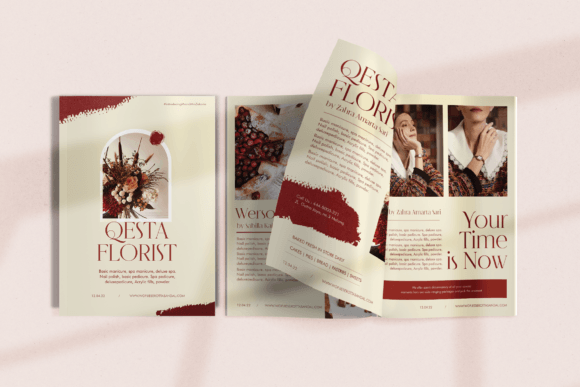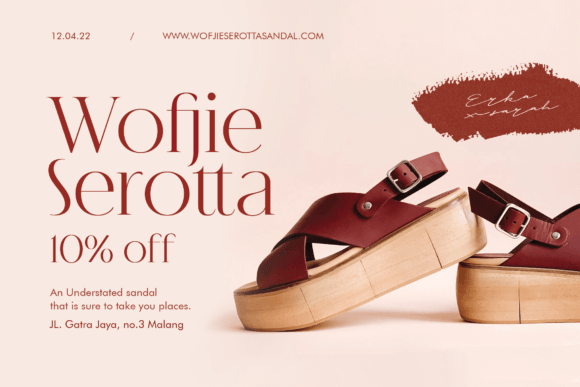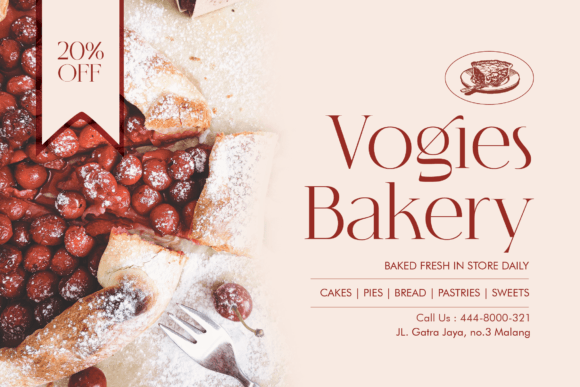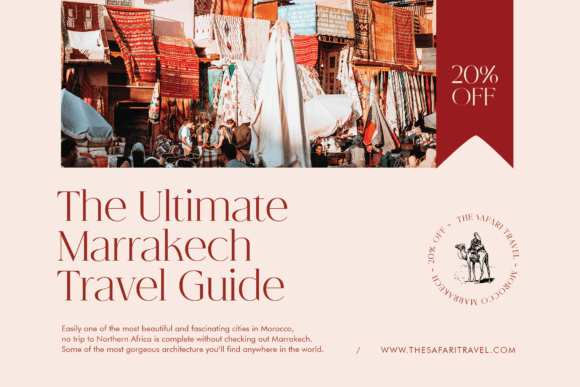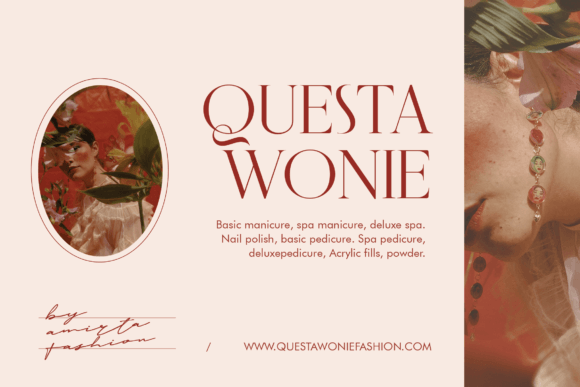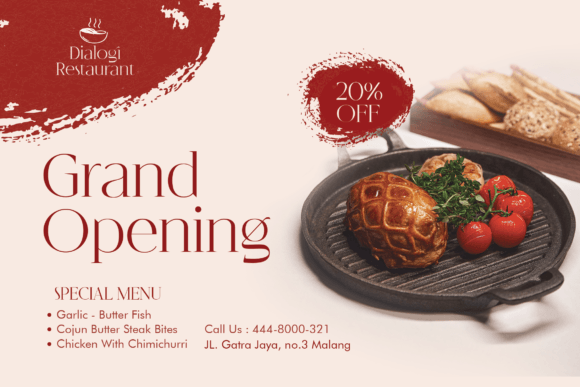
Introduction to Quinstory Font
Have you ever been in the middle of a creative project, staring at a blank page, and suddenly, the perfect font pops into your head? For designers, this moment is pure magic. It’s the spark that ignites a vision, and with the right typography, the entire design comes alive. One such font that has been making waves in the design community is the Quinstory Font – a modern, elegant aesthetic serif font that’s perfect for luxury logos, classy editorial designs, and much more.
As a valuable resource for designers, Quinstory Font offers a range of alternates and ligatures that can be combined to create a unique and captivating typography design. Whether you’re working on a high-end branding project or a blog design, this font is sure to elevate your creative work. With its high-quality design and transparent background, Quinstory Font is a free download that’s waiting to be unleashed on your next creative project.
- Unique, hand-crafted design aesthetic, setting it apart from other fonts in the market.
Honest Review: Quinstory Font
I recently had the chance to work with the Quinstory Font for a creative project and I’m excited to share my honest review. As a designer, I’m always on the lookout for high-quality design resources to elevate my work. The Quinstory Font did not disappoint.
- Unique Style: The Quinstory Font has a distinct and quirky style that sets it apart from other fonts.
- Limited Character Set: The Quinstory Font has a relatively limited character set, which may be a drawback for designers who need a wide range of characters.
- No Bold or Italic Variations: The font only comes in a regular weight, which may not be suitable for all design applications.
Overall, I was impressed with the Quinstory Font’s unique style and versatility. While it may have some limitations, it’s still a valuable addition to any designer’s toolkit. I’d definitely recommend it for creative projects where a distinctive font is needed.
Experiment with different font sizes and styles to get the most out of the Quinstory Font. You can also use it in combination with other design elements to create a unique and eye-catching design.
The Quinstory Font is perfect for a variety of creative projects, including graphic design, branding, and digital art. Its high-quality design and transparent background make it an ideal choice for designers looking for a versatile and effective font.